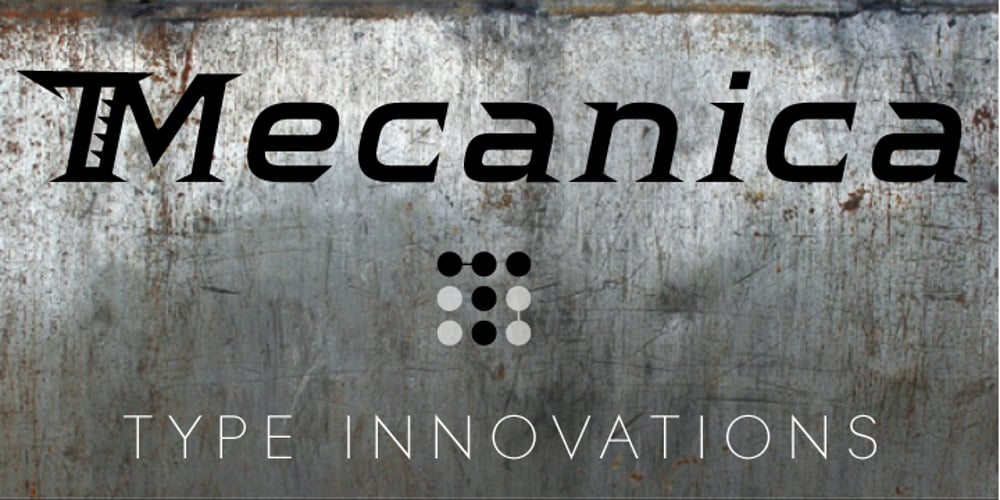
Mecanica
Mecanica font
Mecanica Font Family was designed by Alex Kaczun and published by Type Innovations. Mecanica contains 5 styles and family package options. Mecanica is an original design by Alex Kaczun. It is a display font not intended for text use. It was designed specifically for display headlines, logotype, branding and similar applications. The entire font has an original look which is strong, dynamic, machine generated and can be widely used in publications and advertising. Mecanica is a futuristic, techno-looking and expressive typeface with an appearance of metal-like parts with some very sharp edges. This attractive display comes in roman with lower case and lining figures. The font also is available with true-drawn slant italics. Other design style variations include Swash as well as Ornamental Italic Capitals along with a few Ornamental Symbols to embellish and enhance the possibilities.